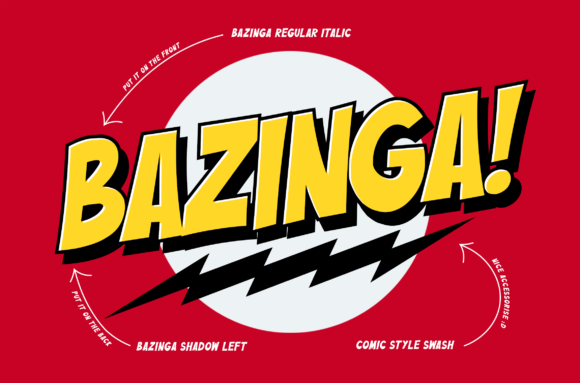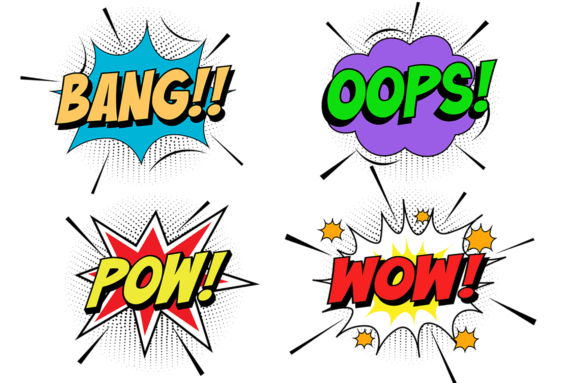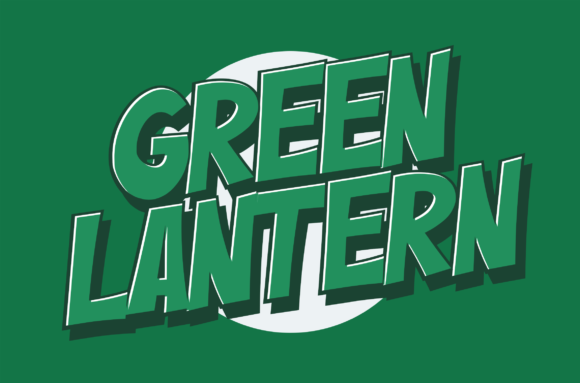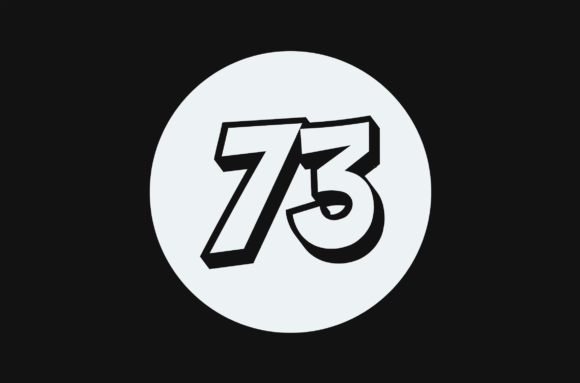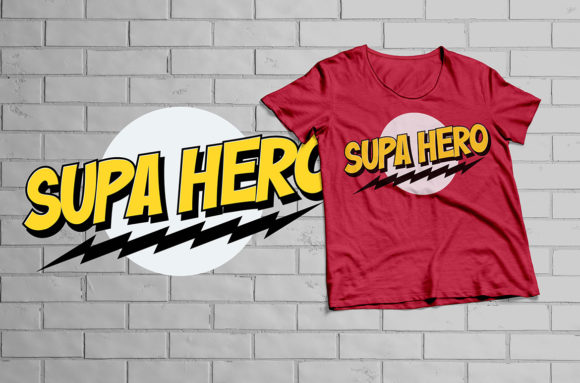
Have you ever sat at your desk, staring at a blank screen, and suddenly, a burst of inspiration hits you? The ideas start flowing, and you know exactly what you want to create. For many designers, this moment is the spark that sets their imagination ablaze. And, for those who love cartoon-style designs, Bazinga! Font is the perfect tool to bring your ideas to life.
Bazinga! Font is a fun, thick lettered display font that’s designed to stand out and grab attention. Whether you’re working on a cartoon-related design, a children’s game, or a book cover, this font is a great choice. Its playful and whimsical feel makes it valuable for designers who want to add a touch of personality to their projects. With Bazinga! Font, you can create unique and eye-catching titles, quotes, and brand names that will leave a lasting impression on your audience.
Bazinga! Font Key Features
- Font Family: Bazinga! Font is a unique, custom-designed font family with a playful, energetic feel.
- Size: Bazinga! Font comes in 5 font sizes, ranging from 10pt to 72pt, making it suitable for a variety of design needs.
- Resolution: Designed for high-resolution displays (up to 300 DPI), ensuring crisp and clear text rendering on modern screens.
- Language Support: Bazinga! Font supports over 100 languages, including Latin, Cyrillic, and Greek alphabets, making it a versatile choice for global designs.
- Unique Characteristics: Features a distinctive, hand-drawn style with custom-designed glyphs and ligatures, adding a touch of personality to any design.
Bazinga! Font Review
I recently had the chance to work with the Bazinga! Font, and I must say it’s been an interesting experience. Let’s break down what works well and what doesn’t.
- Unique Character**: The Bazinga! Font has a distinct personality that sets it apart from other fonts. It’s perfect for adding a touch of whimsy to your designs.
- Good for Titles**: The font is well-suited for titles and headings, thanks to its bold and eye-catching style.
- Customizable**: Bazinga! Font offers a range of customization options, making it easy to adjust the font to fit your design needs.
- Limited Readability**: The font’s unique style can make it difficult to read at smaller sizes or in certain contexts.
- Lack of Consistency**: The font’s irregularities can make it challenging to maintain a consistent look throughout your design.
- Not Suitable for Body Text**: Due to its bold and playful nature, Bazinga! Font is not ideal for body text, as it can be overwhelming for readers.
While Bazinga! Font is a great choice for adding a touch of personality to your designs, its limitations should not be overlooked. If you’re looking for a font that’s perfect for titles and headings, Bazinga! might be a great fit. However, if you need a font for body text or require a more consistent look, you may want to consider other options.
Bazinga! Font Practical Application Guide
The Bazinga! Font is perfect for creating playful and humorous designs, such as:
- Infographics and posters
- Social media graphics and memes
- Humorous quotes and sayings